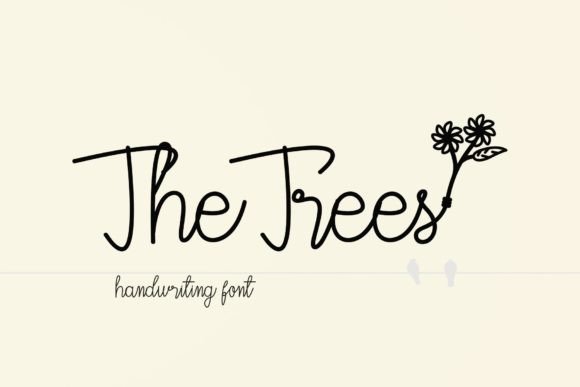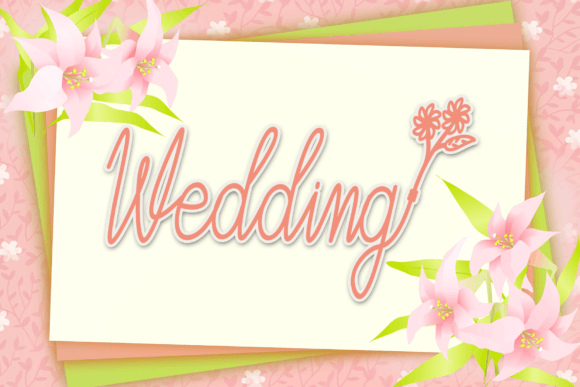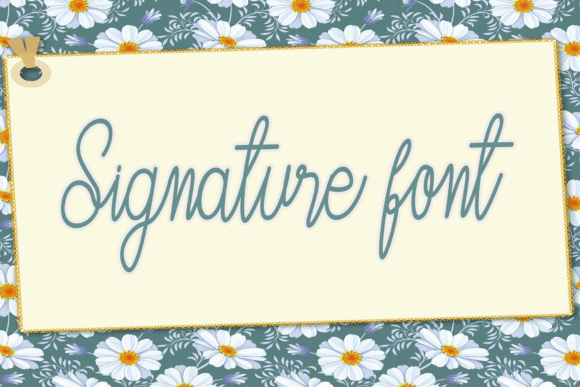
About The Trees Font
“The Trees” font is a delightful blend of cool, simplicity, and playfulness, making it a versatile choice for a wide range of designs. Its casual and handwritten style adds a touch of personality to any project, transforming them into lively and engaging creations. Whether you’re working on branding, packaging, posters, social media graphics, or any other creative endeavor, “The Trees” font has the power to elevate your designs and breathe life into your favorite ideas.
One of the standout features of “The Trees” is its inherent versatility. Its simplicity allows it to complement various design aesthetics, from minimalist and modern to whimsical and artistic. This adaptability makes it a valuable asset for designers who enjoy exploring different styles and concepts. Regardless of the project, “The Trees” effortlessly integrates, enhancing the visual appeal and overall impact of your designs.
The font’s playful demeanor adds a touch of charm to your creations. Its handwritten appearance conveys a sense of authenticity and approachability, making it particularly appealing for designs that aim to connect with audiences on a personal level. Whether you’re designing greeting cards, invitations, or any content that requires a warm and friendly tone, “The Trees” adds a delightful and welcoming touch.
In branding and packaging, “The Trees” font injects a sense of freshness and creativity. Its playful strokes and cool vibe resonate well with modern audiences, making it suitable for products targeting younger demographics. The font’s simplicity ensures excellent readability, allowing your brand message to shine through clearly and effectively.
For posters and promotional materials, “The Trees” stands out as a font that captures attention. Its playful yet legible characters create visually appealing headlines and taglines, making your messages more memorable. Whether you’re promoting events, sales, or artistic endeavors, this font adds an eye-catching element that draws viewers in and encourages them to engage with your content.
In social media graphics, “The Trees” adds a touch of casual elegance. Its handwritten style complements various social media platforms, making your posts and captions look effortlessly chic. Whether you’re sharing inspirational quotes, product updates, or lifestyle content, the font enhances the visual aesthetics of your posts, making your social media presence more captivating and shareable.
In summary, “The Trees” font is not just a typeface; it’s a creative tool that empowers your designs. Its cool, simple, and playful nature makes it a favorite among designers, allowing them to bring their favorite creative ideas to life. Embrace the versatility and charm of “The Trees” in your projects, and experience how it transforms your designs into visually appealing and engaging masterpieces.